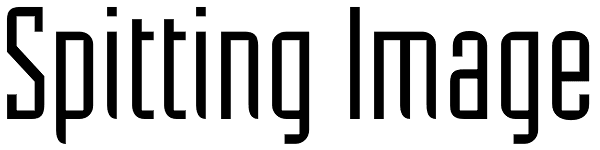
Spitting Image
SpittingImage is a font which speaks of mechanical exactness, cool and reserved. The SpittingImage font family is formed by two different weights (regular and bold), each one with uppercase and lowercase letters, numbers, punctuation marks and...